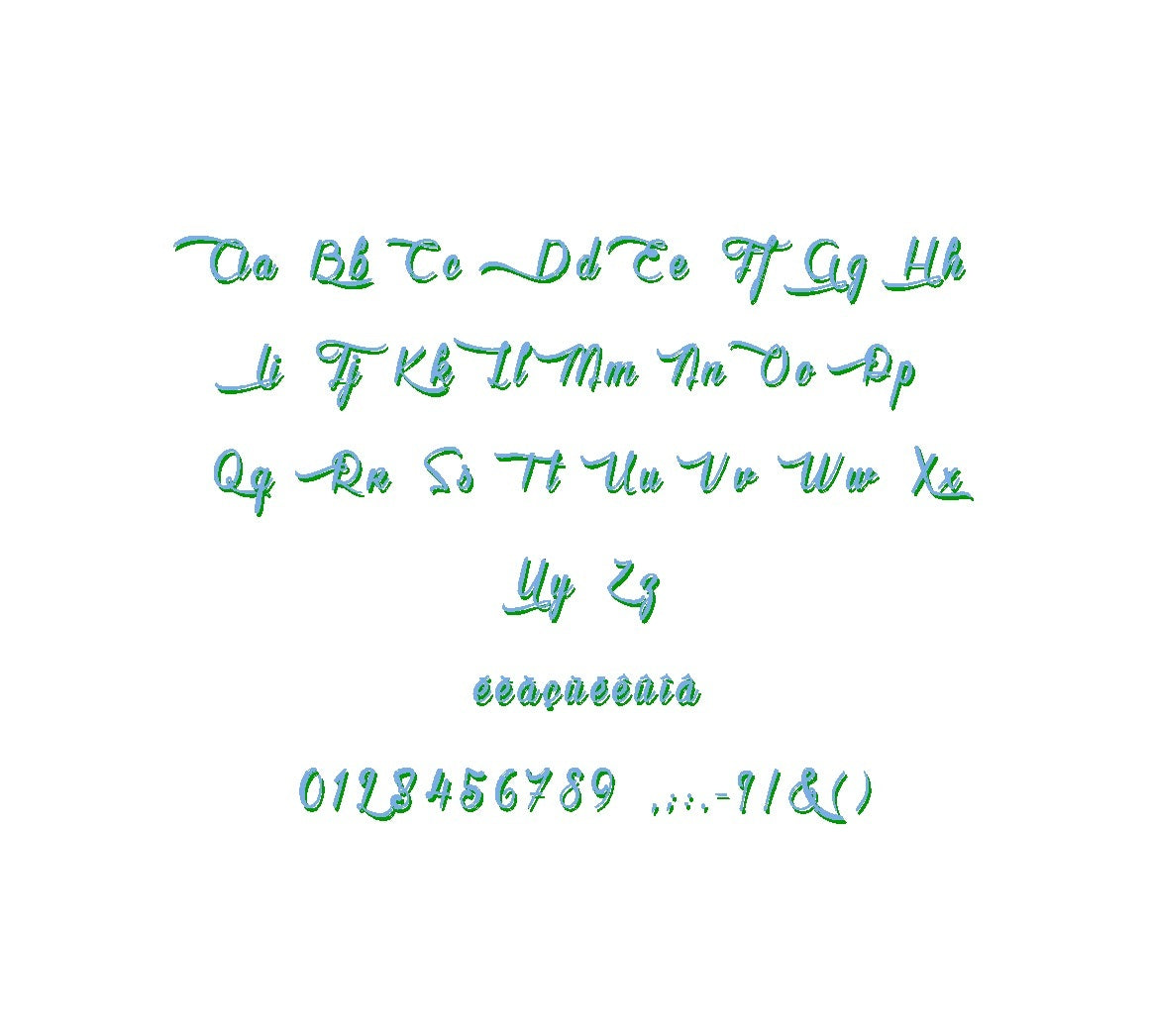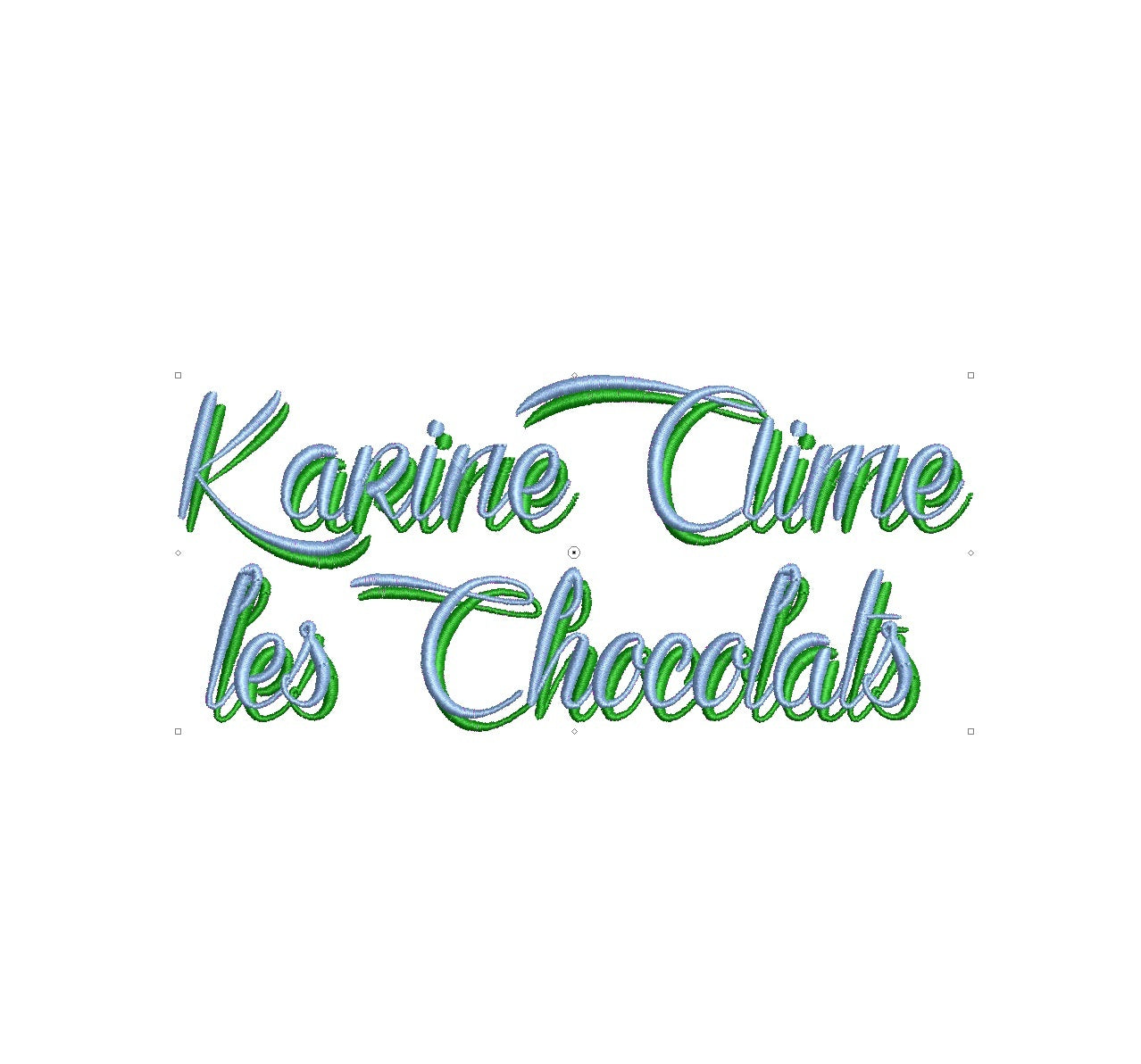
Elevate your designs with the indulgent Karine Aime Les Chocolats Shadow ESA font. Fully compatible with Wilcom Studio e4.5.6 and Hatch 3 versions and up, this font adds a delectable touch of elegance and whimsy to your projects. The font's intricate shadows and playful lines create a captivating visual impact that sets your designs apart. Streamline your creative process and achieve flawless results by utilizing this font with industry-leading software. Upgrade your projects with the compatibility of Karine Aime Les Chocolats Shadow ESA font and craft visuals that evoke a sense of delight. Embrace creativity and sweetness for your design journey today!